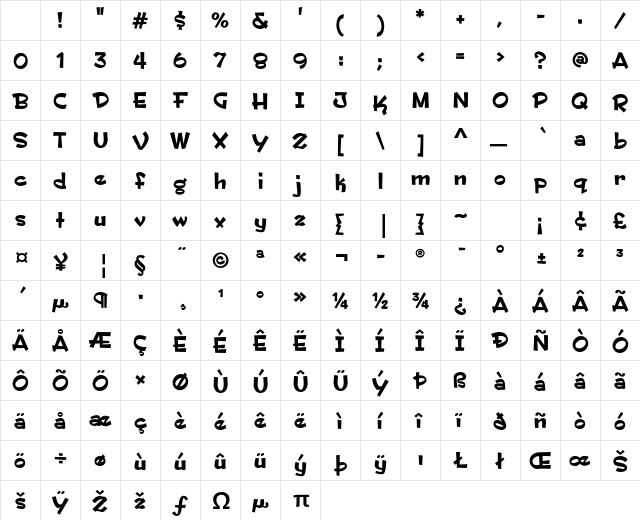
Posterboy ITC Std Regular
Designer: Chester Wajda
Design Context for Posterboy ITC Std
Posterboy ITC Std is a composed and adaptable typeface that performs quietly and consistently across a wide range of design contexts.